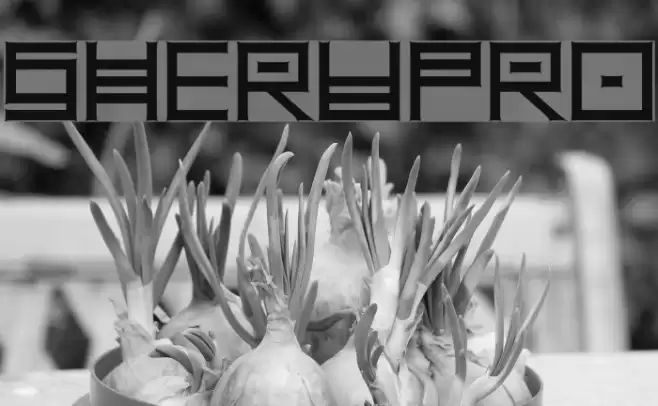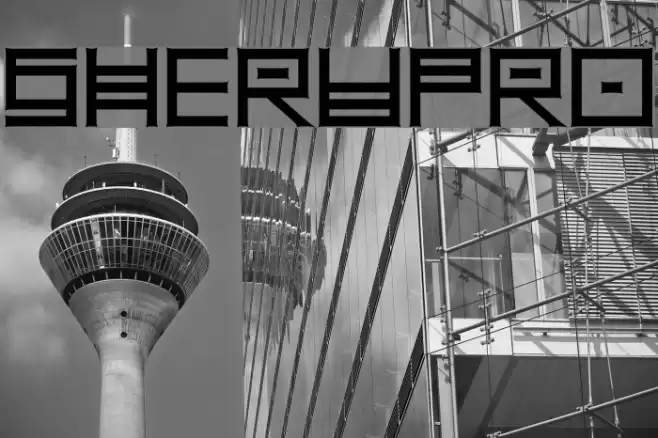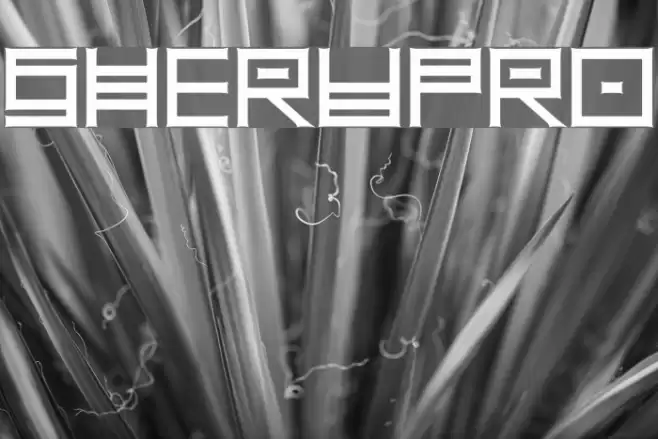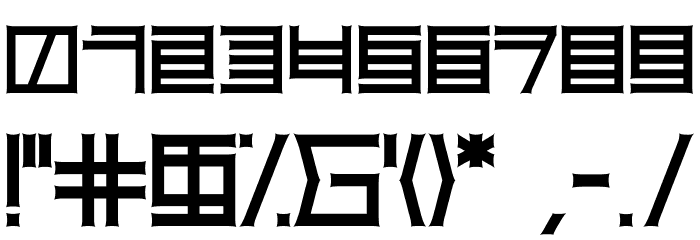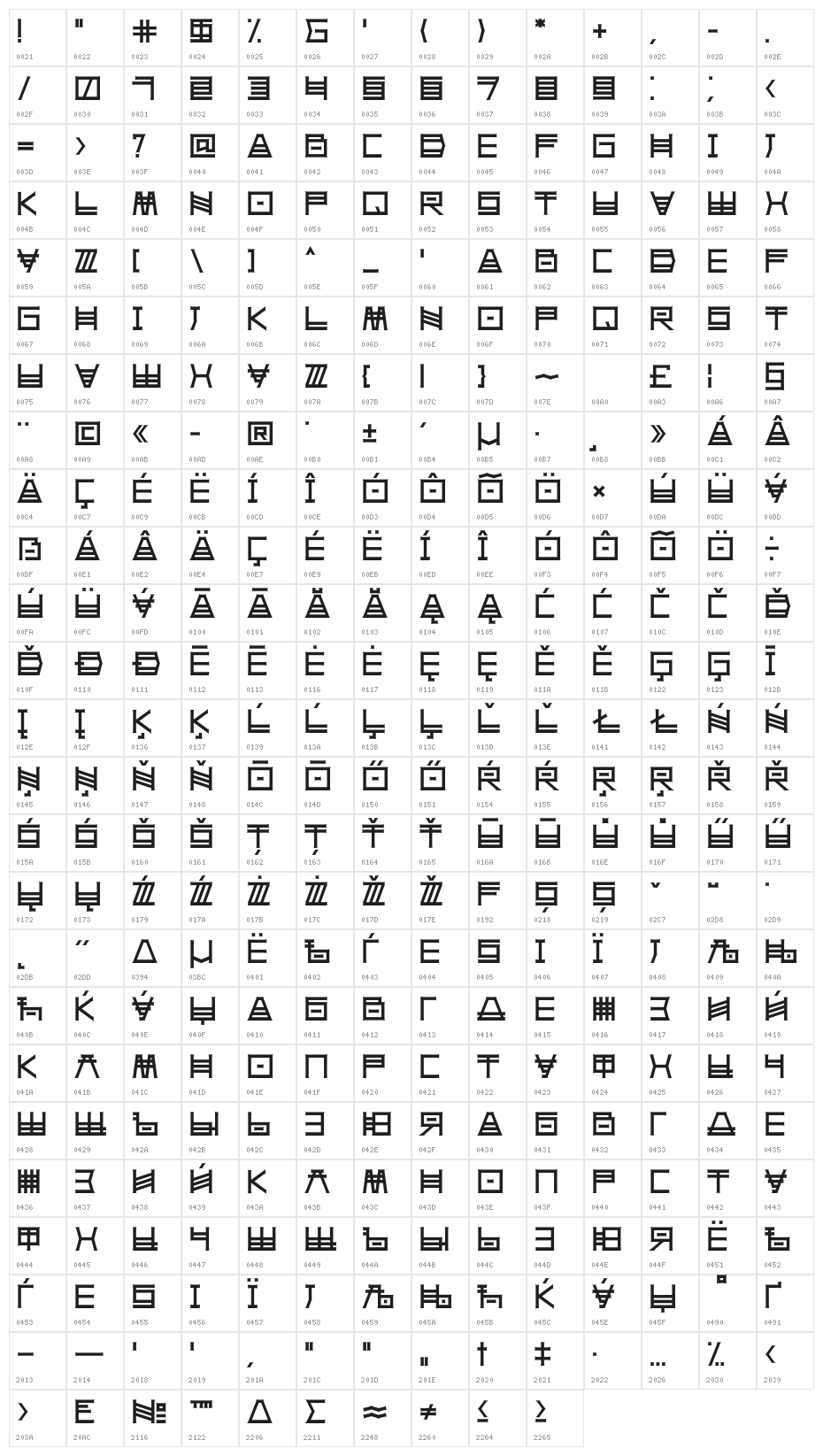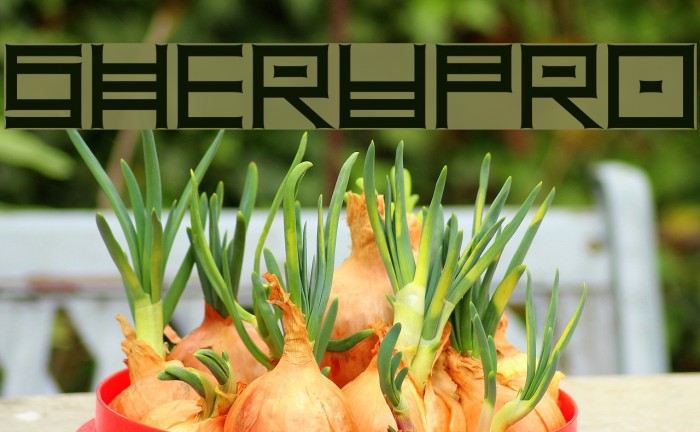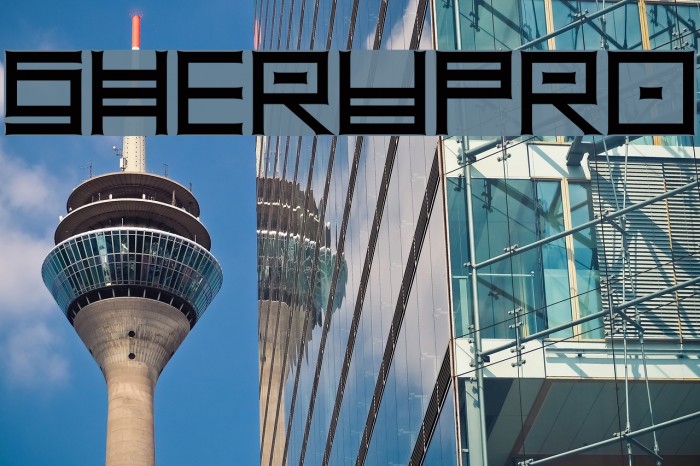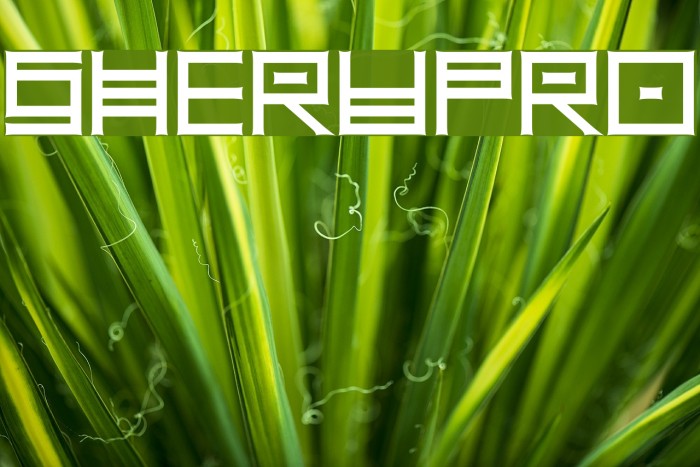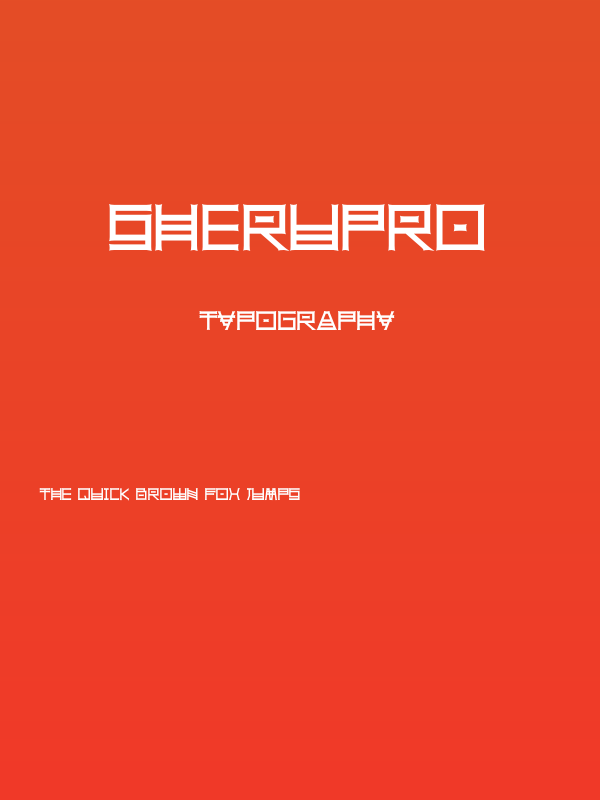
SheruPro Font
SheruPro Description
This font features a bold and geometric design, characterized by sharp angles and a futuristic aesthetic. The uppercase letters are distinct with a blocky, almost mechanical appearance, while the lowercase letters maintain a consistent style that complements the uppercase. Numbers and special characters follow the same angular theme, making the font cohesive and visually striking. The thick strokes and uniform line weight contribute to its strong presence, making it suitable for attention-grabbing designs. Its unique style is reminiscent of digital or sci-fi themes, offering a modern and edgy look.
A bold, geometric font with a futuristic and angular design from Asian fonts.
- Proposed Projects: Ideal for sci-fi themed posters, video game titles, tech branding, and futuristic logos.
- Overall Style: Futuristic